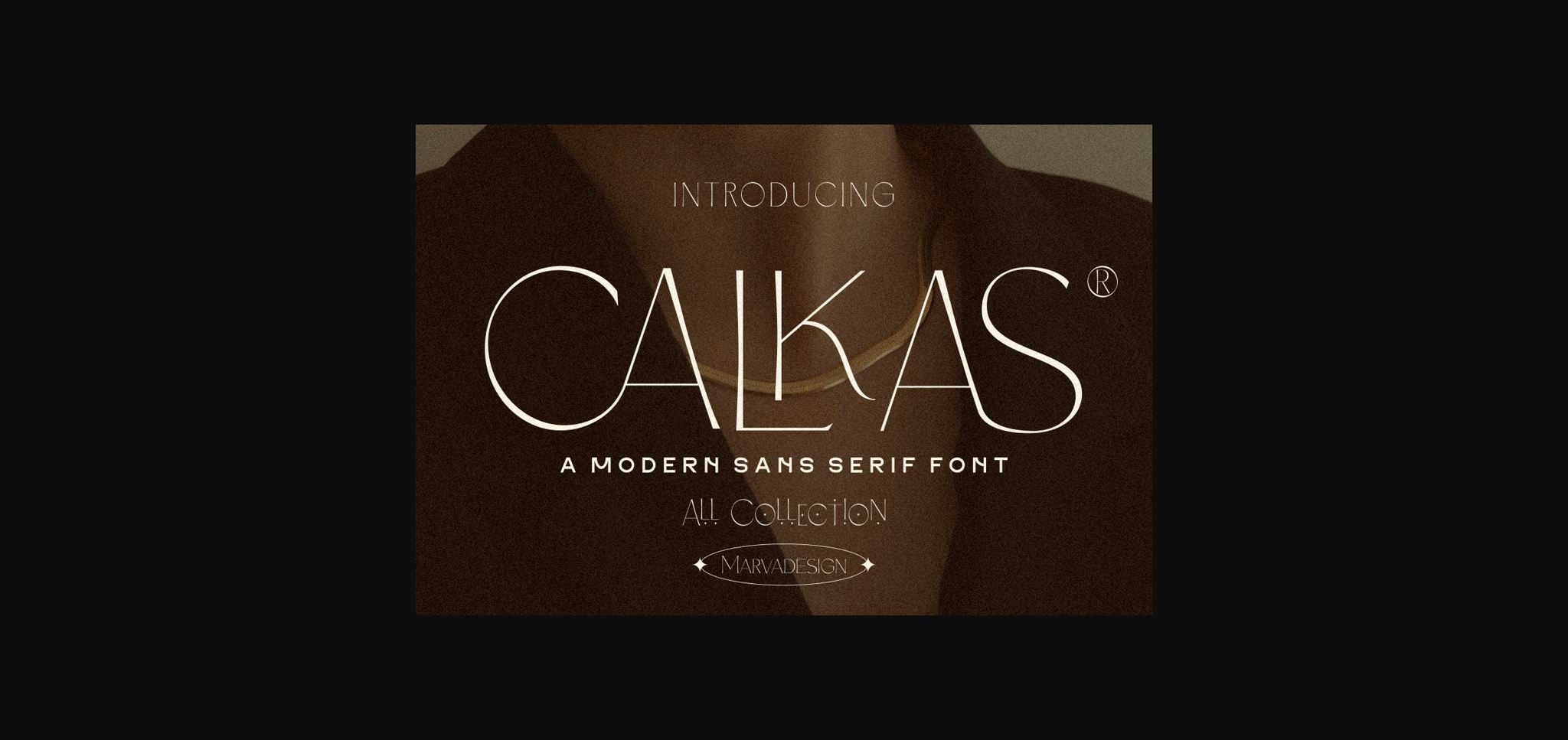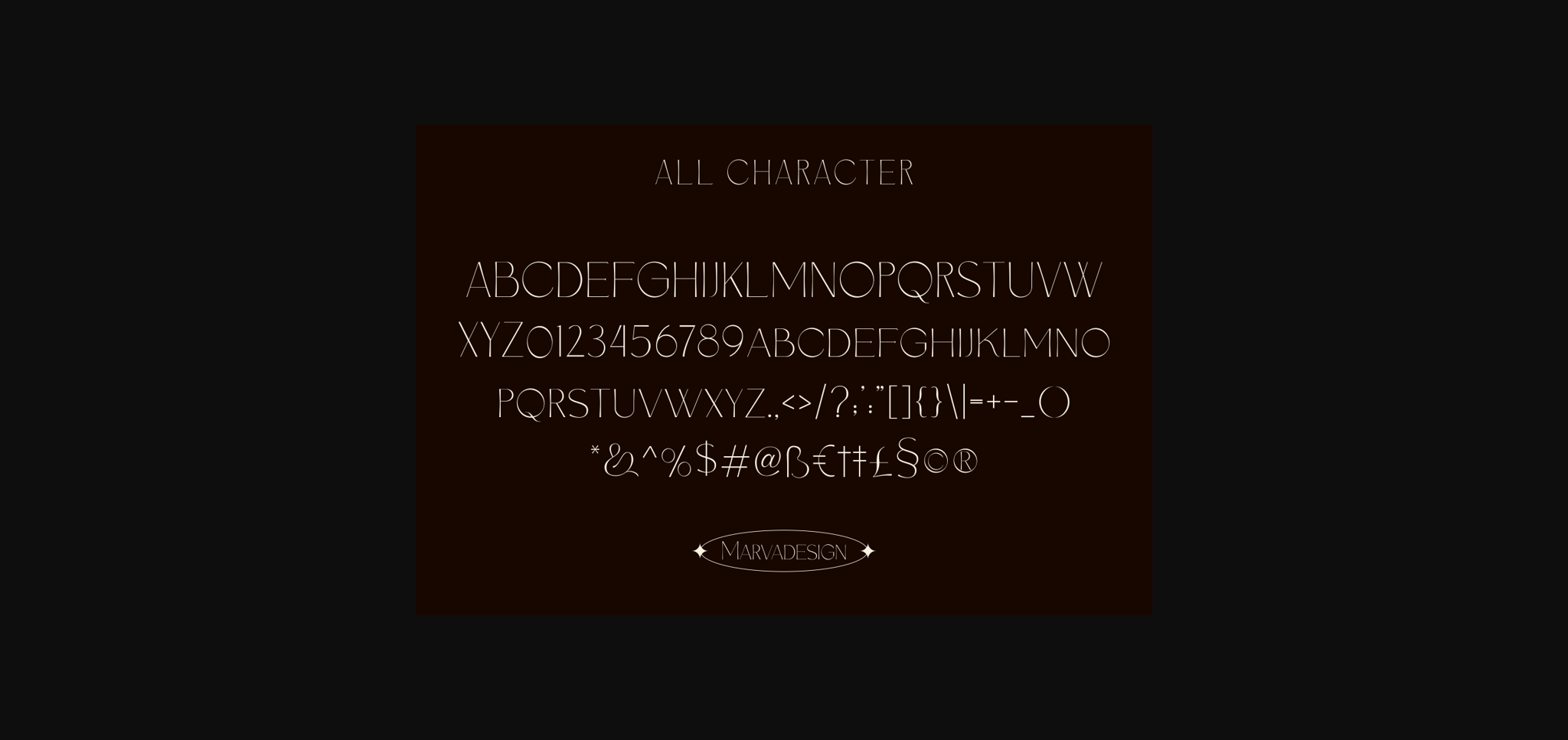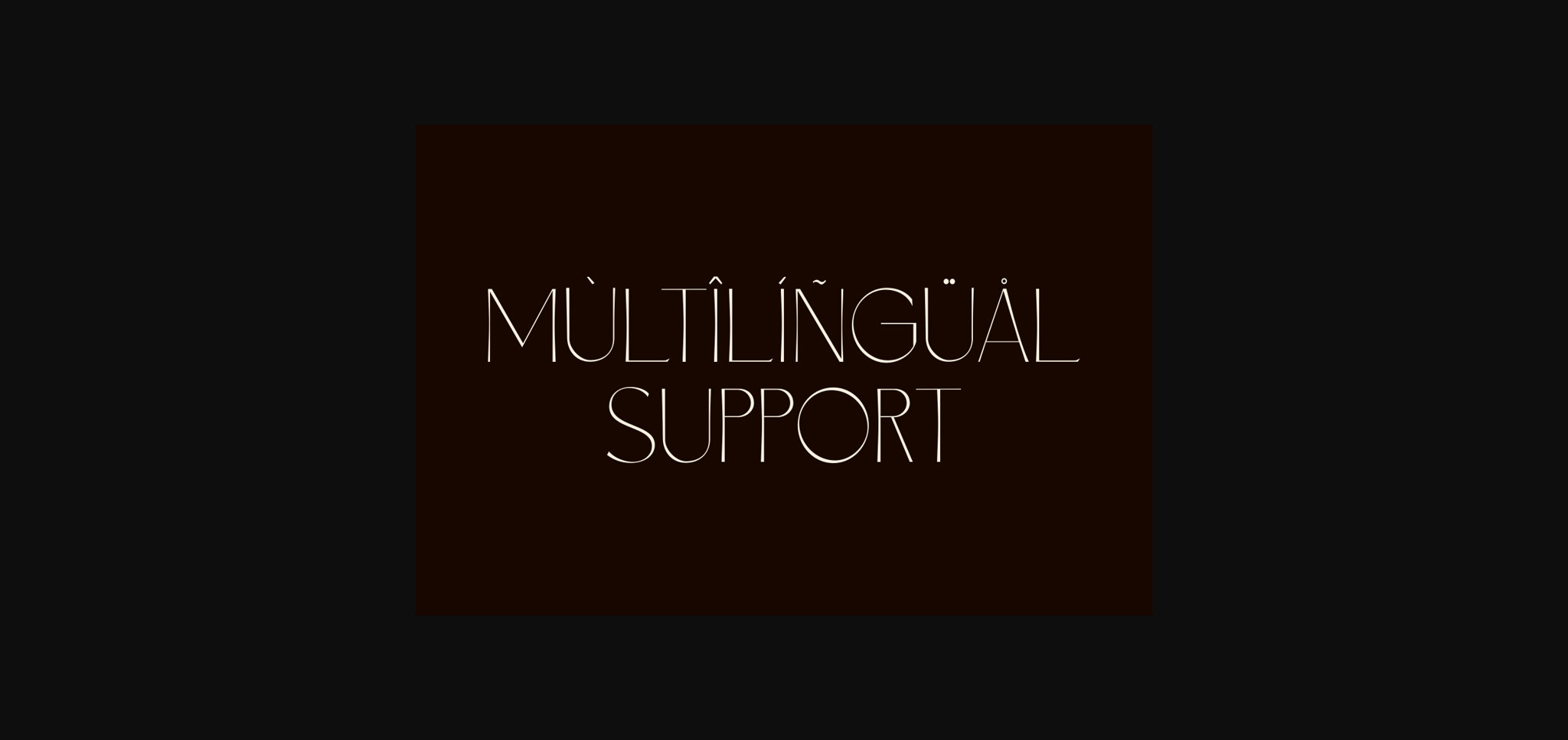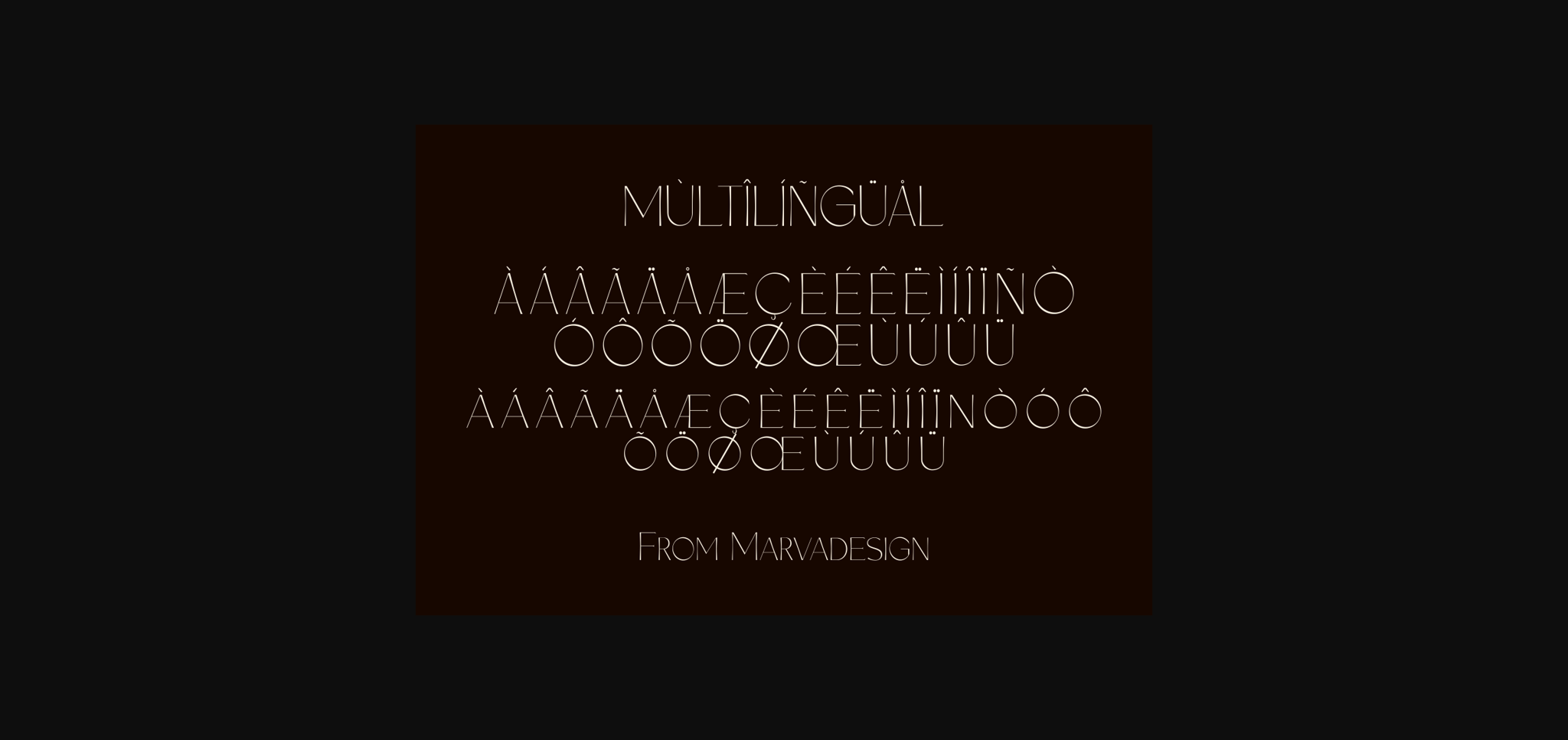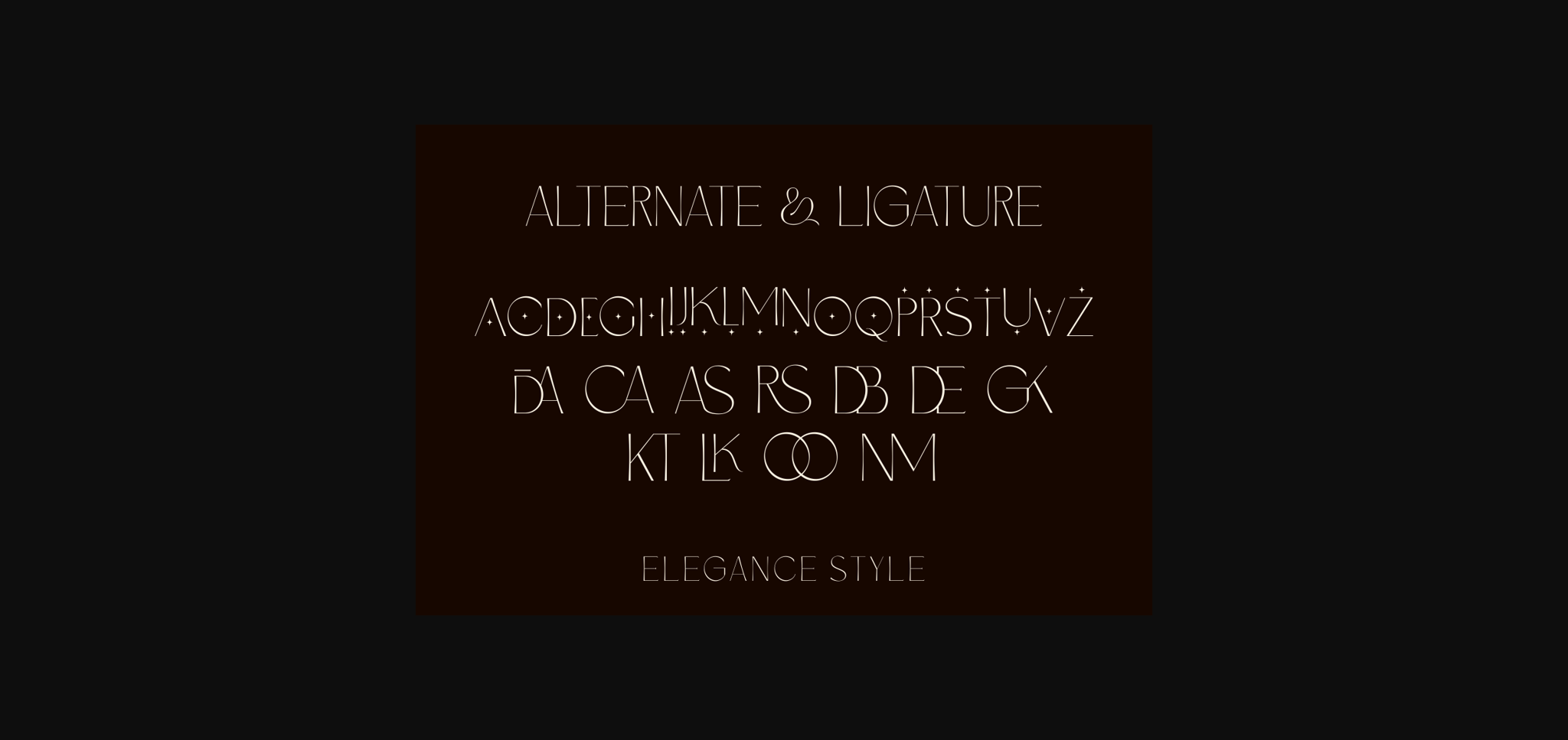
Calkas Font
About Calkas Font
Welcome to the stunning world of Calkas Font, a modern display font that blends boldness with authenticity. Calkas Font is your go-to choice for a myriad of branding projects, be it logos, templates, or product designs; it shines across multiple contexts. It doesn’t simply fit; it accentuates your ideas, giving them pivotal visual impact. Widely versatile, Calkas Font captures attention with its uppercase and lowercase characters, echoing the universality of design. Offered in both otf and ttf formats, it reaches for a global panorama with its multilingual attributes. It also boasts of alternates and ligatures, adding extra flair and flexibility for the designer in you.